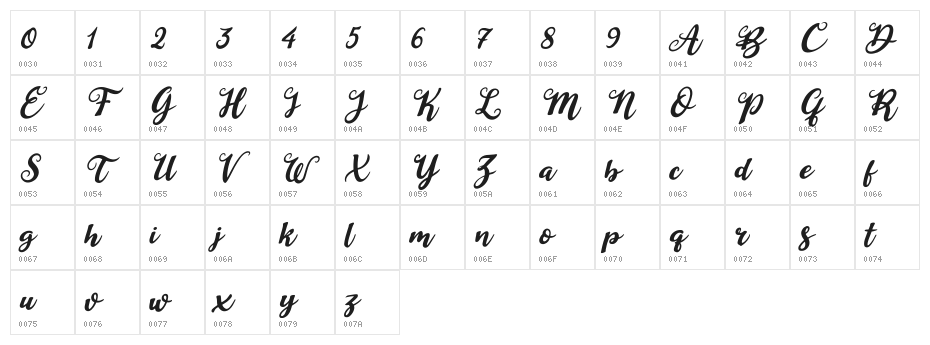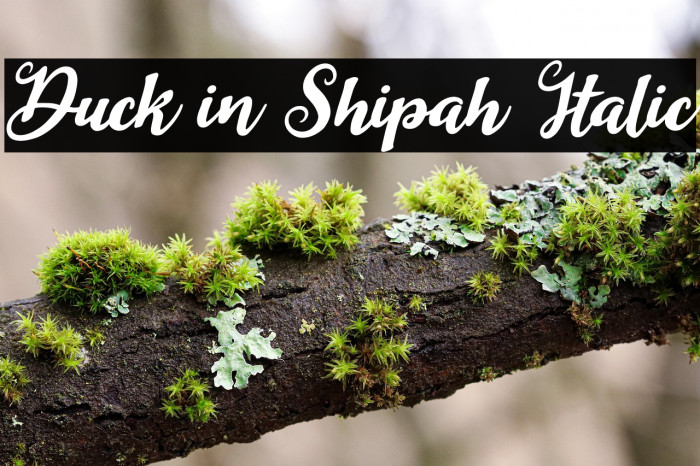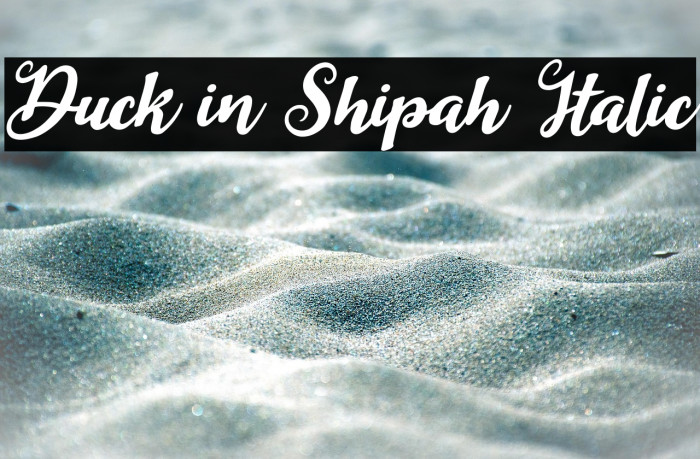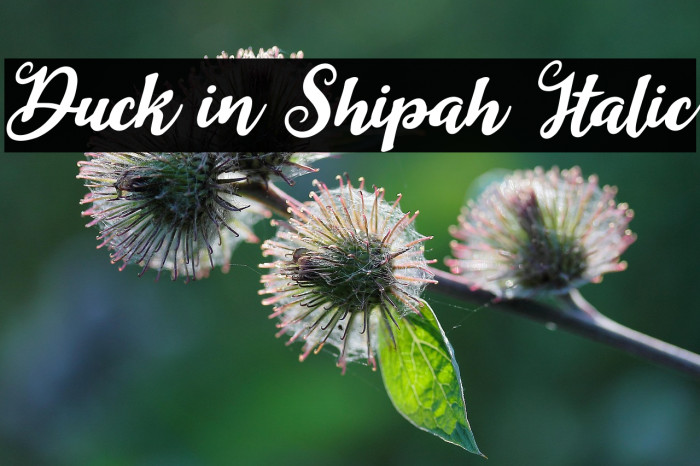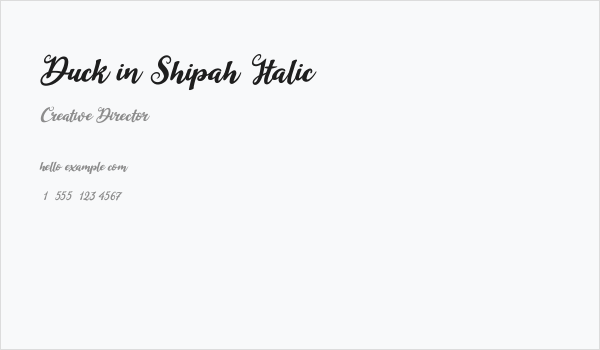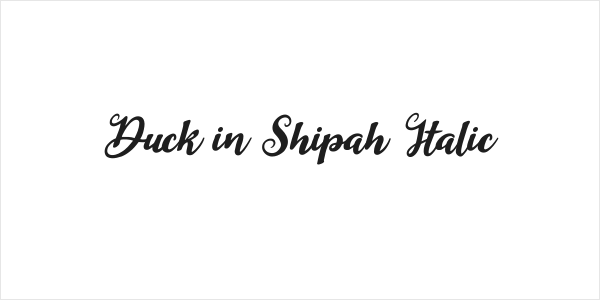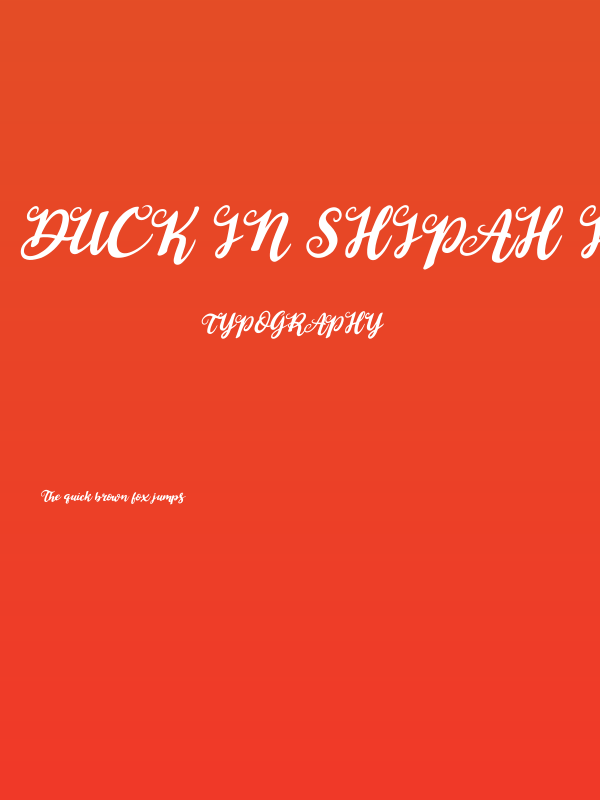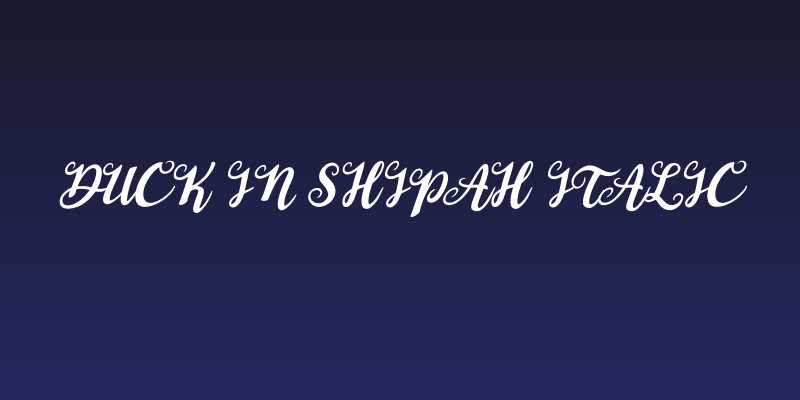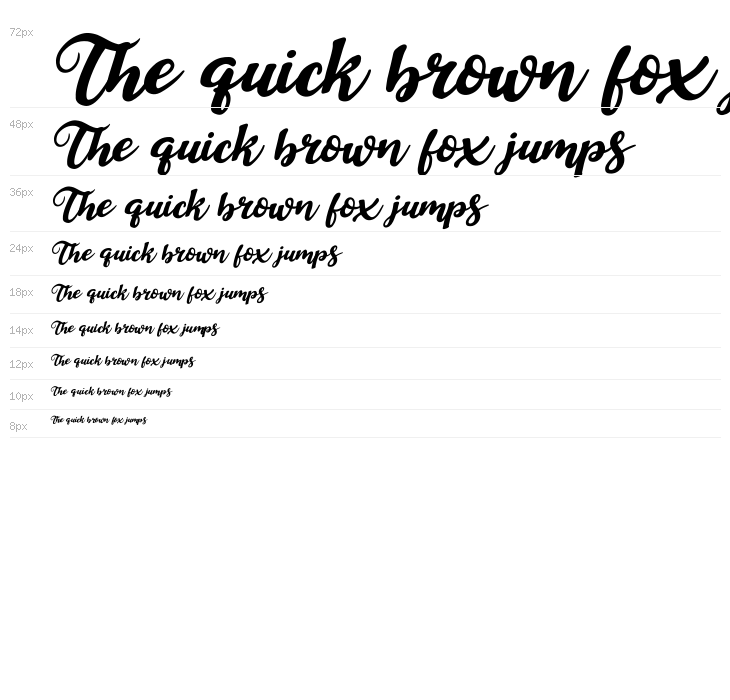
Duck in Shipah Italic Font
Duck in Shipah Italic Description
This font features a dynamic and flowing script style, characterized by its elegant and cursive letterforms. The uppercase letters exhibit a graceful and ornate design, with sweeping curves and loops that add a touch of sophistication. The lowercase letters maintain a consistent style, offering a smooth and connected appearance that enhances readability. The numerals are bold and clear, complementing the overall aesthetic. Special characters are thoughtfully integrated, maintaining the font's cohesive look. This font's italic nature adds a sense of movement and fluidity, making it suitable for creative and expressive projects.